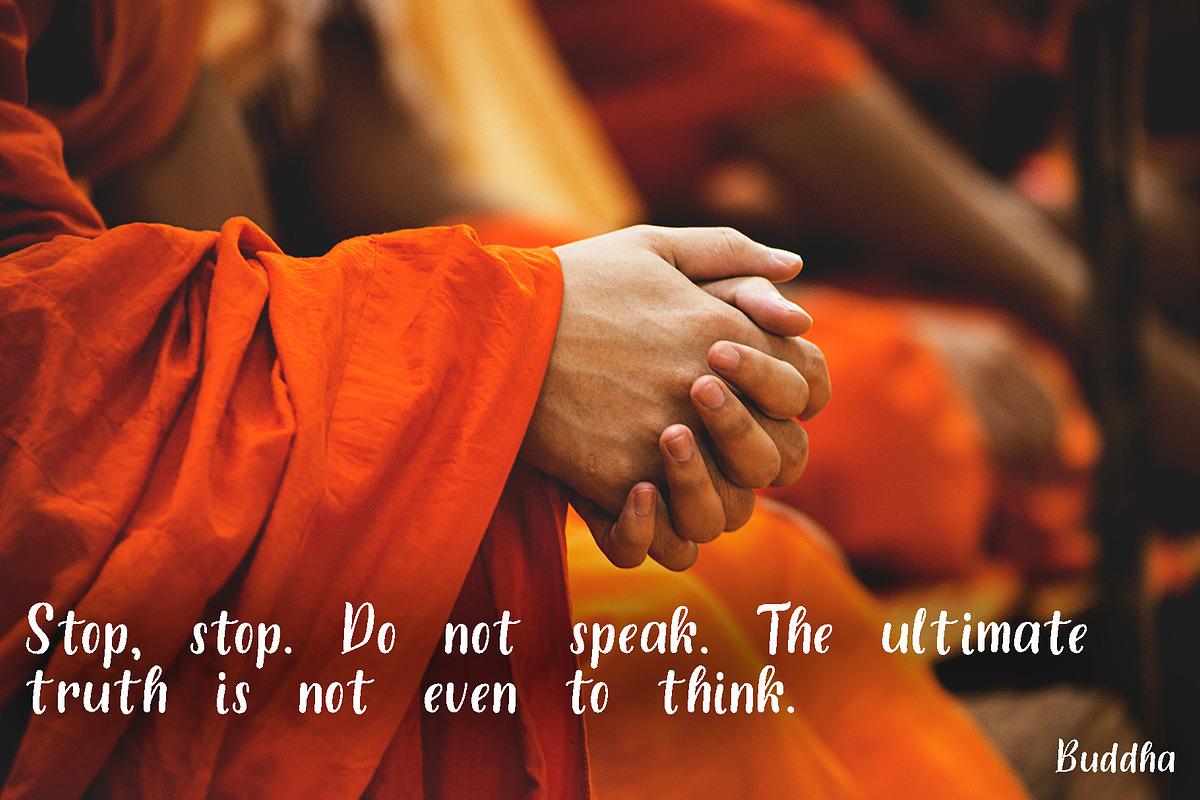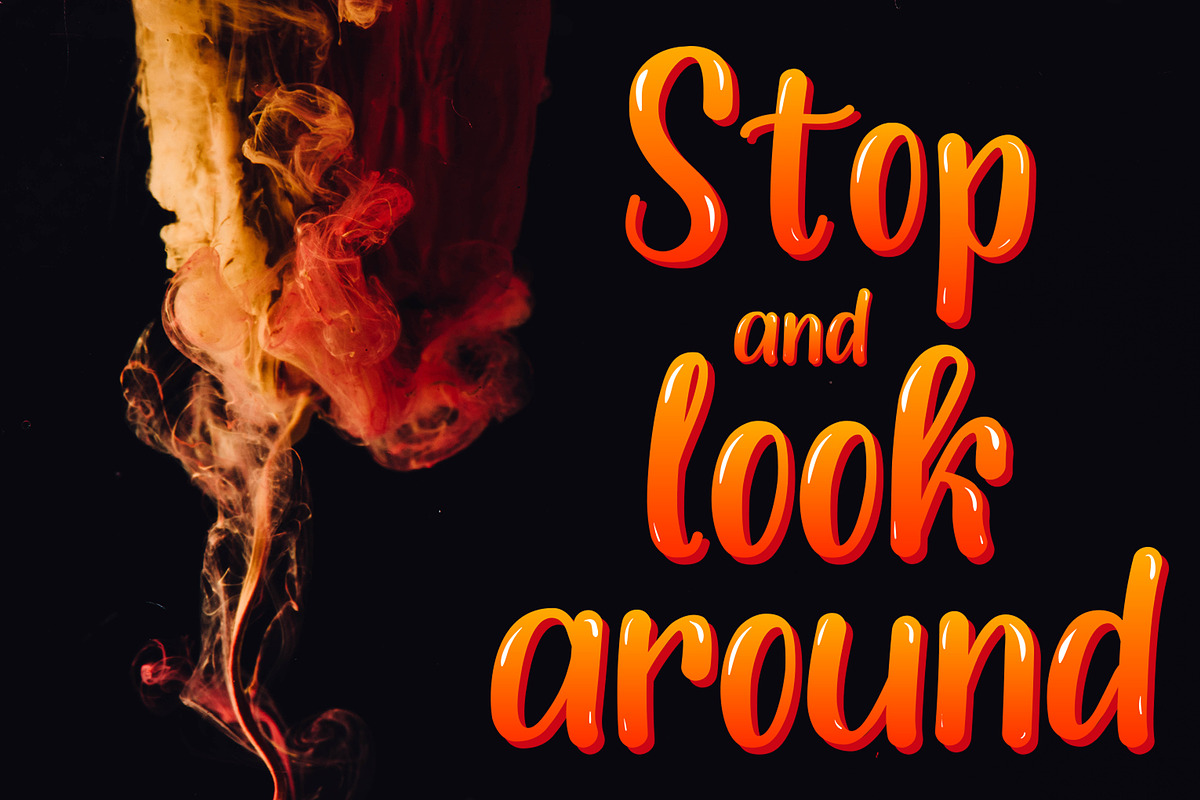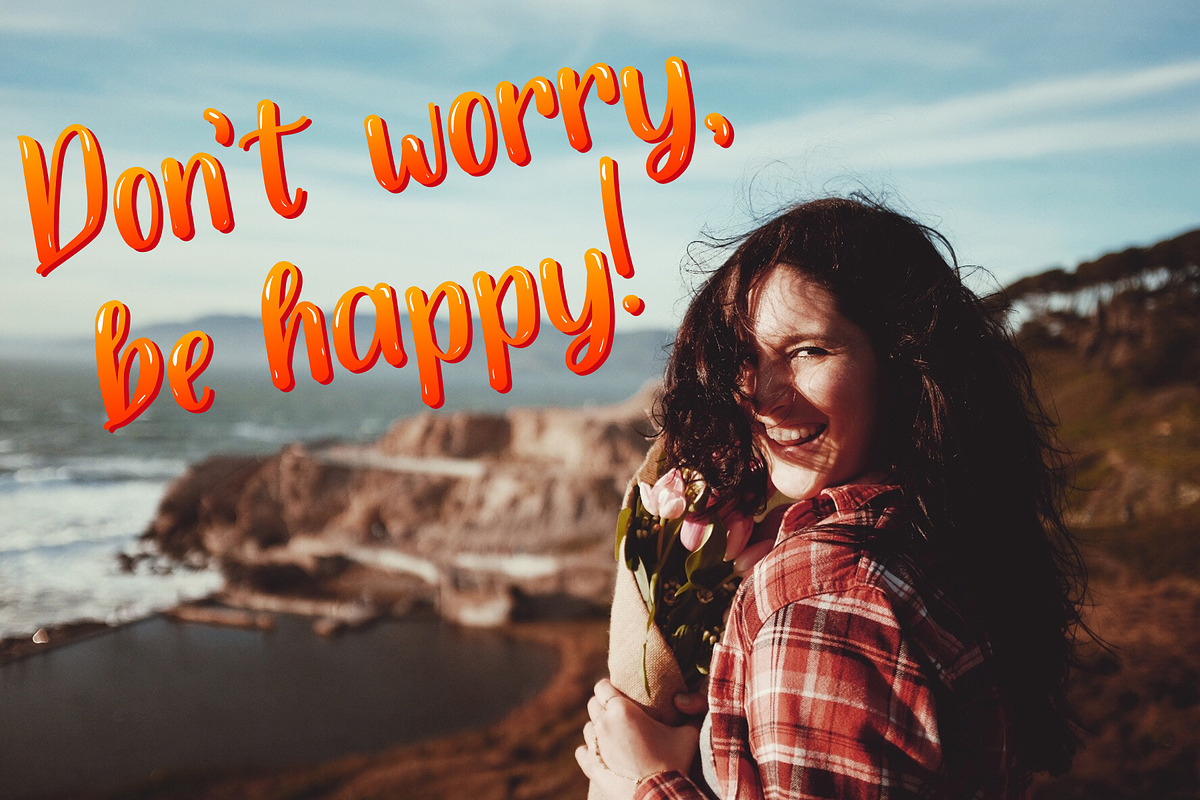
Primus Font SVG handwritten script
Introducing Primus SVG Font! This is a bright and joyful handwritten font. No glare is repeated because each is drawn separately :) This is also a plain monochrome font in .otf format.
With him you can add happiness to ordinary life!
The font includes all letters, numerals and punctuations (almost all)